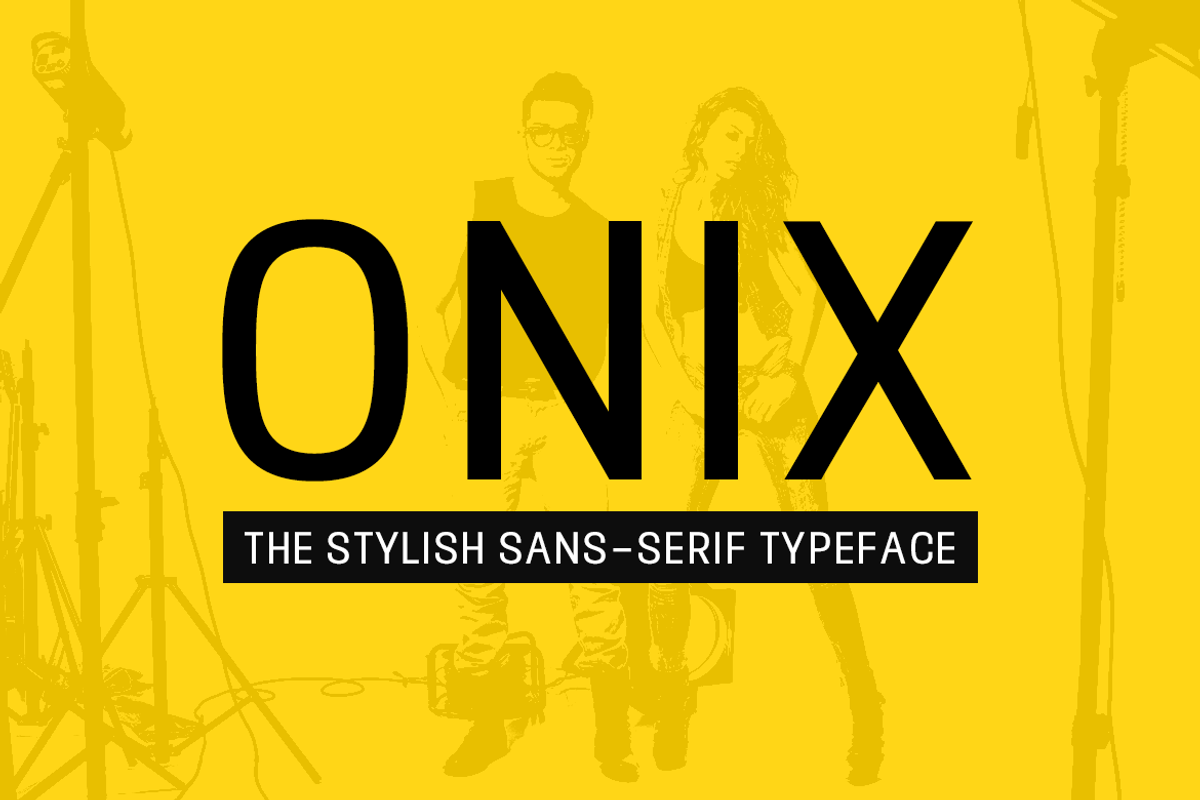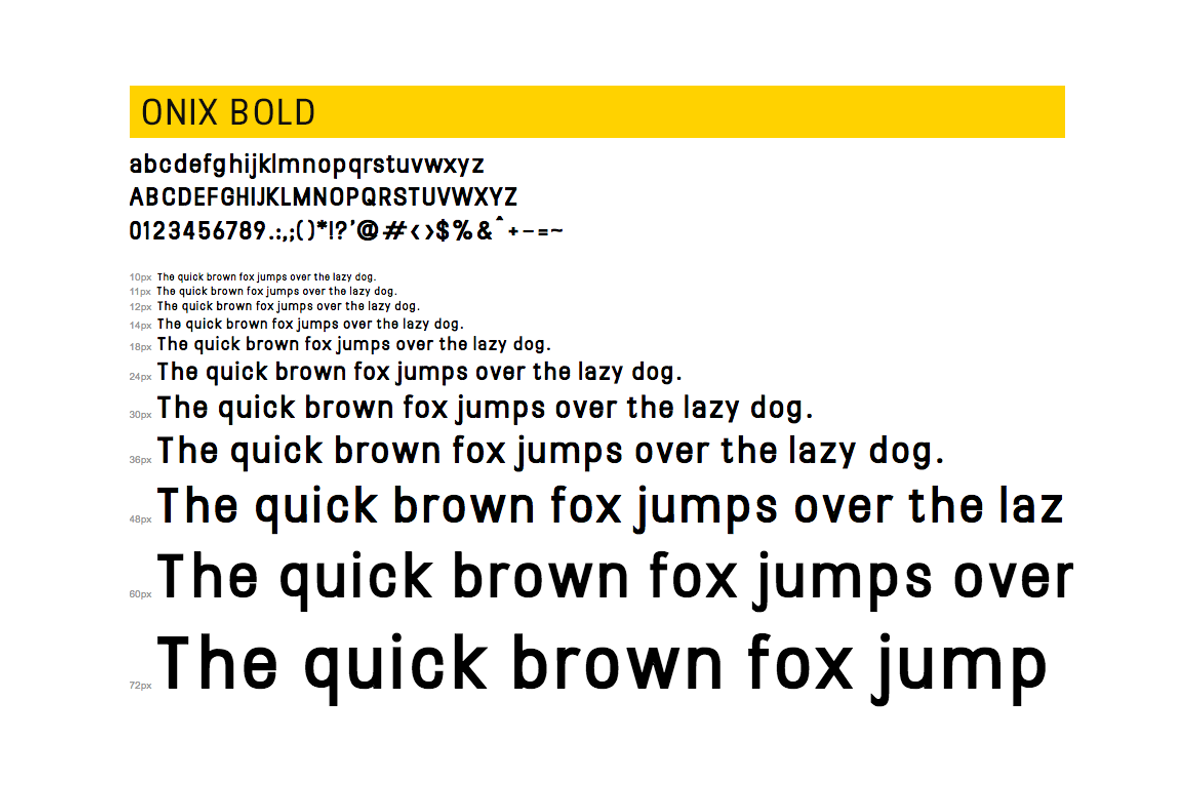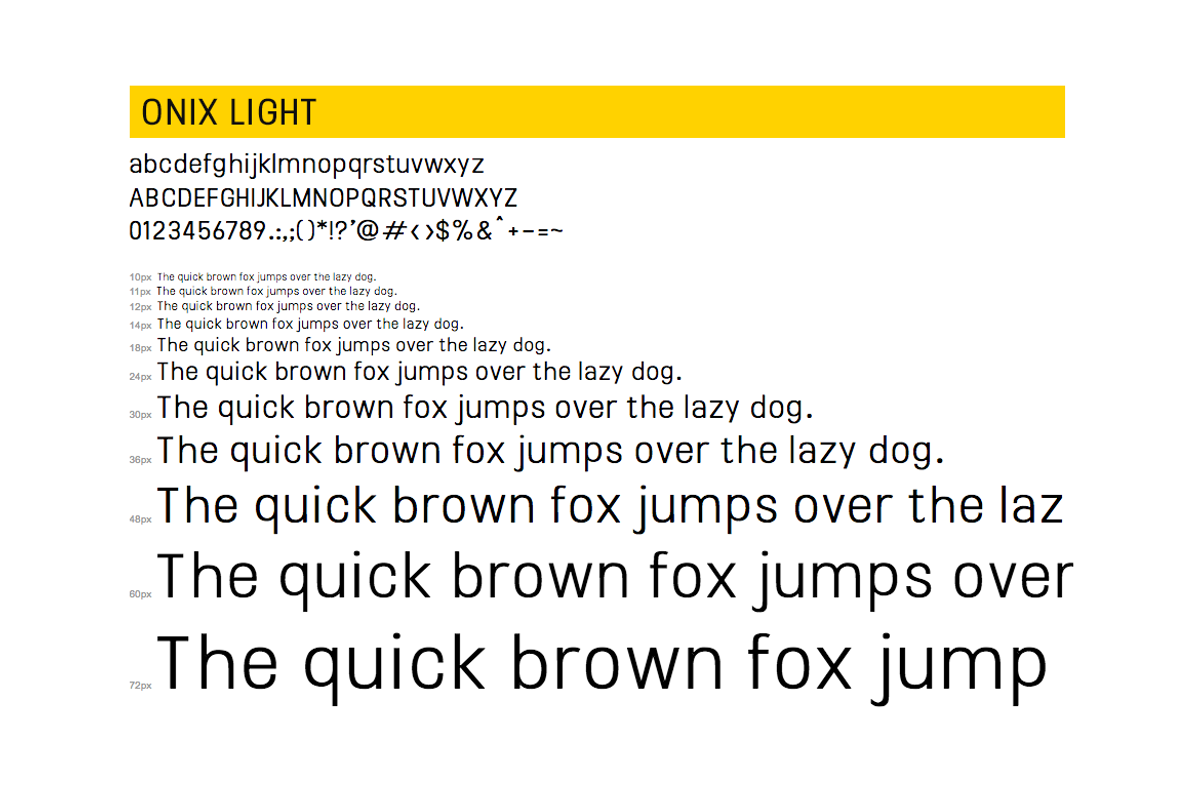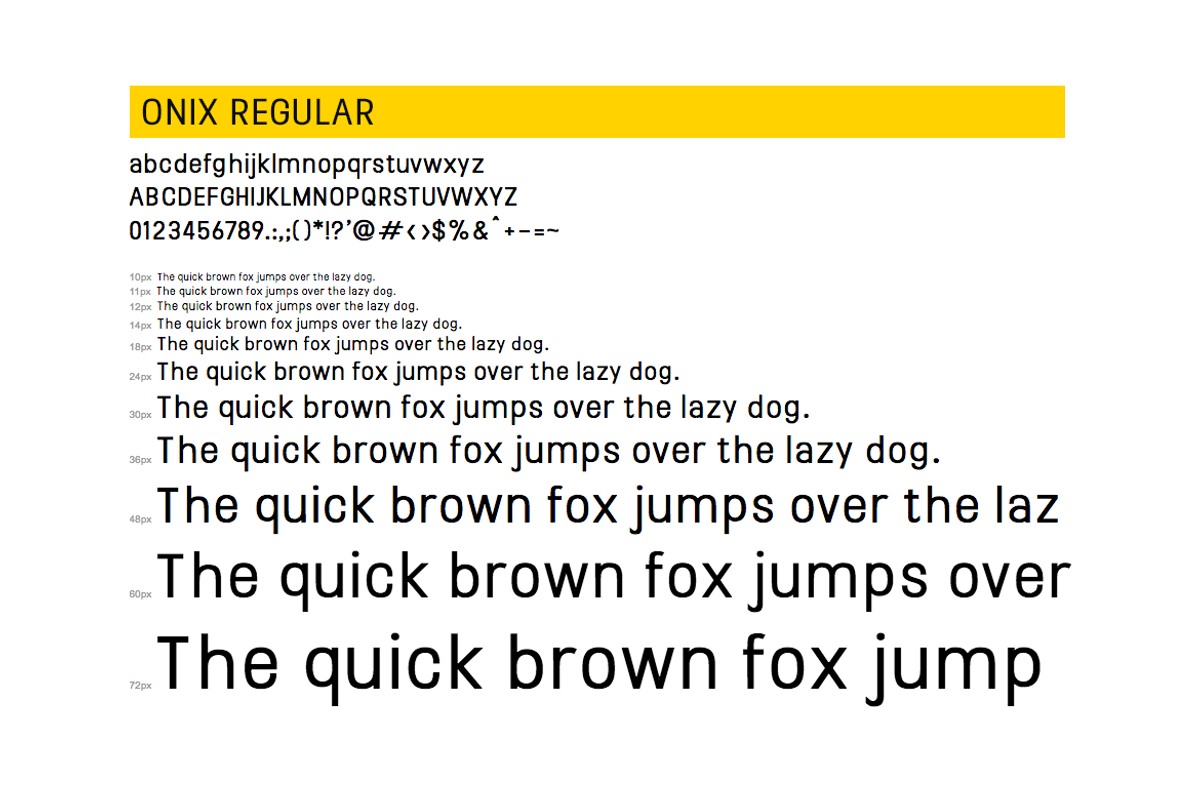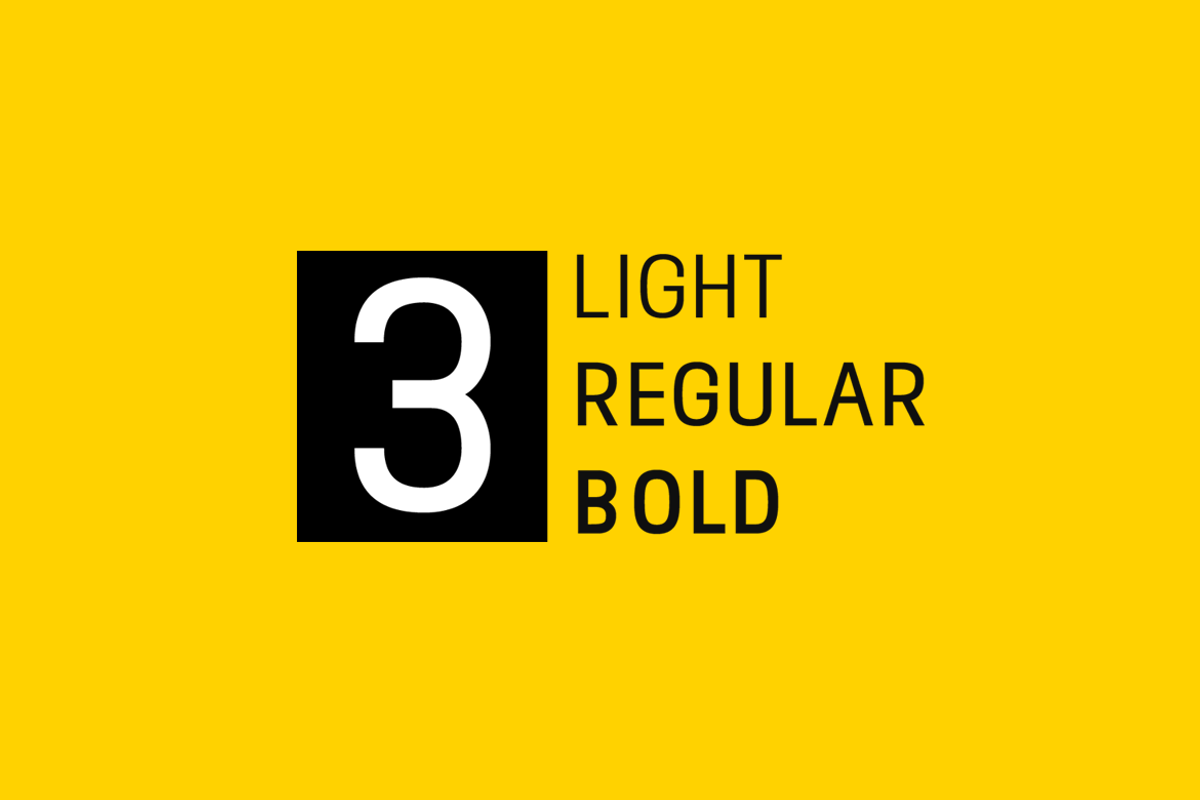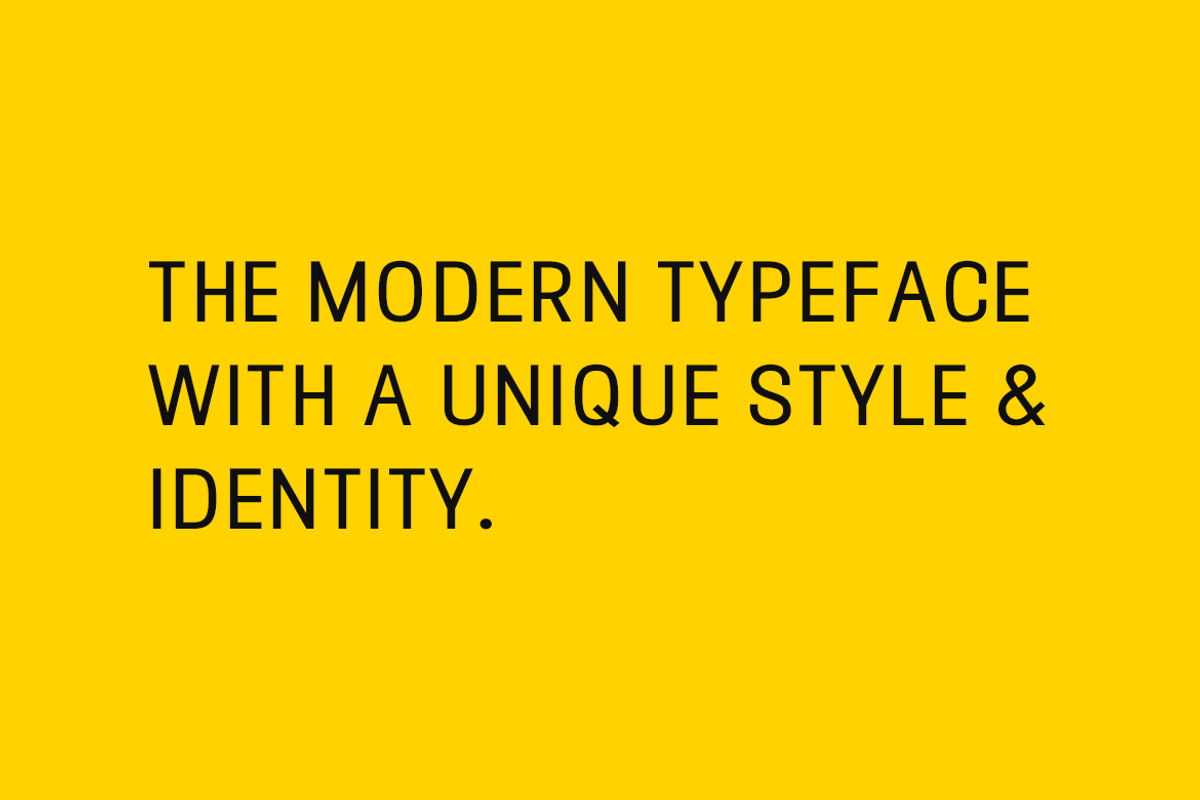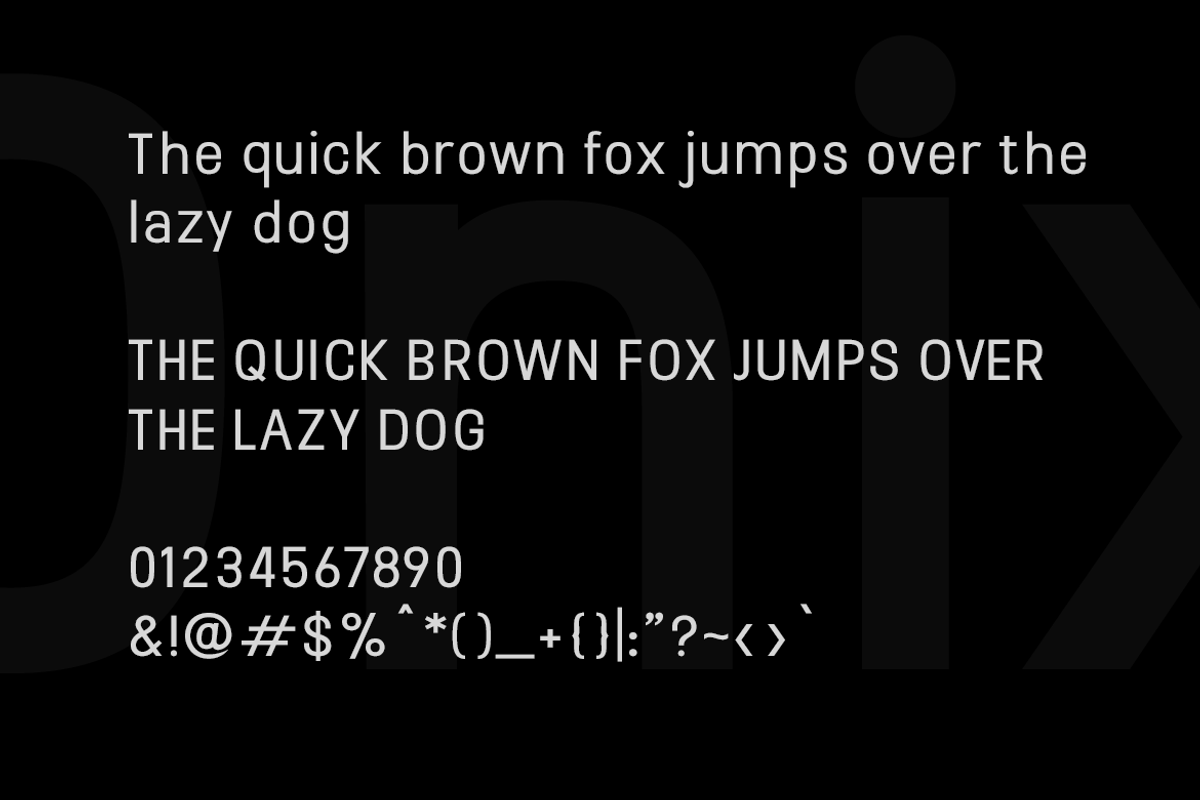
ONIX - Stylish Typeface + Web Fonts
ONIX is a modern Sans Serif typeface with a unique style and identity of it's own. The font is inspired from some western product packaging and lettering styles. ONIX can be best used for presenting amazing headlines, attractive caption text, professional logo types, product packaging labels, fashion apparels branding, modern website styles and anything you can imagine :)
Font produced by Fontastica (formerly Unique Foundry), distributed by Designova.